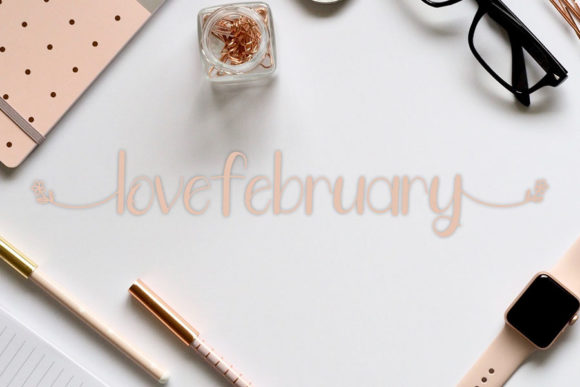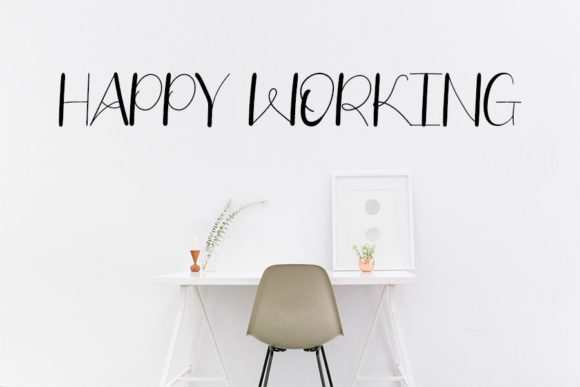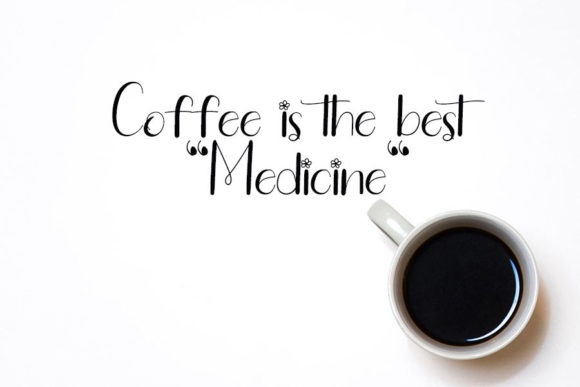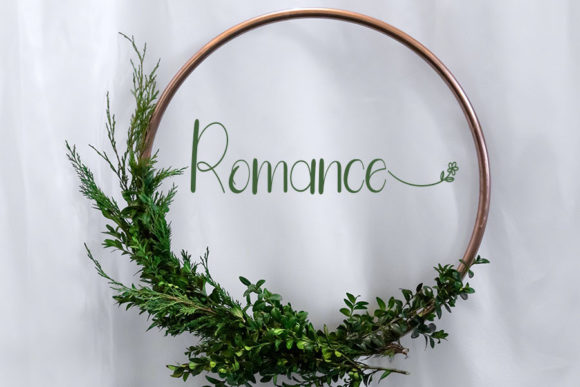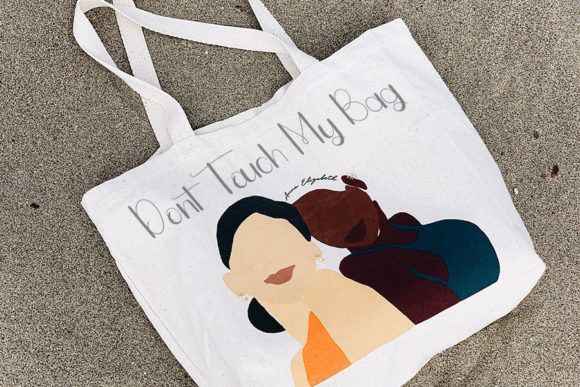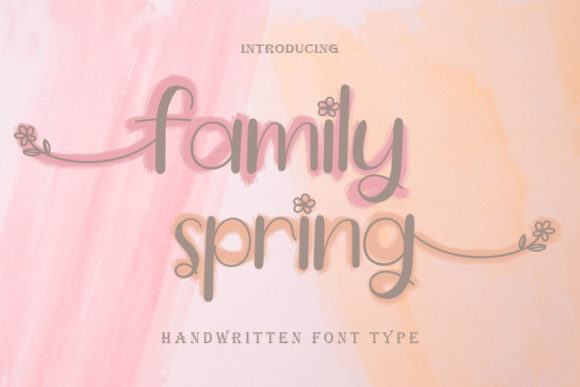
Introducing Family Spring Font: Elevate Your Designs with Elegance and Sophistication
Are you on the hunt for a font that exudes elegance, sophistication, and a touch of modern flair? Look no further than Family Spring Font, a stunning handwritten typeface that is sure to capture your heart. Designed with meticulous attention to detail, Family Spring seamlessly blends classic calligraphic influences with a contemporary twist, making it the perfect addition to your design arsenal.
Handwritten fonts have a unique charm that can instantly elevate your designs from ordinary to extraordinary. They add a personal touch, conveying warmth and character in a way that digital fonts often can’t. Family Spring Font is a masterclass in handwritten typography, boasting beautiful, flowing lines that dance across the page with effortless elegance.
What Makes Family Spring Font Stand Out
- Classy Calligraphic Influences: Family Spring Font draws inspiration from traditional calligraphy, giving it a refined and luxurious feel. Each letter is carefully crafted to showcase the beauty of handwritten script, making it perfect for designs that require a touch of sophistication.
- Contemporary and Fresh: While Family Spring Font pays homage to classic calligraphy, it also has a distinctly modern edge. This blend of old and new ensures that your designs feel current and relevant, rather than dated or overly traditional.
- Versatility: One of the standout features of Family Spring Font is its versatility. Whether you’re working on a wedding invitation, a branding project, or a craft tutorial, this font adapts effortlessly to any design brief. Its beauty shines through in both digital and print formats, making it a valuable addition to any designer’s toolkit.
How to Use Family Spring Font in Your Projects
Family Spring Font is incredibly easy to use, even for those who are new to design. Here are a few ideas to get you started:
- Wedding and Event Stationery: Create breathtaking wedding invitations, save-the-date cards, and event programs that set the tone for a stylish and memorable occasion.
- Branding and Packaging: Elevate your brand with a sophisticated logo or packaging design that showcases Family Spring Font’s elegant charm.
- Crafting and DIY Projects: Add a touch of handmade magic to your crafting and DIY projects, such as handmade cards, scrapbooking, and journaling.
- Digital Designs: Use Family Spring Font to add a personal touch to your digital creations, from social media graphics to website headers.
Why Designers and Crafters Love Family Spring Font
Designers and crafters alike are drawn to Family Spring Font for its unique blend of style, versatility, and ease of use. Here are just a few reasons why:
- Time-Saving: With Family Spring Font, you can create stunning designs in a fraction of the time it would take with more complex fonts or design elements.
- Professional Results: Achieve professional-looking results without needing extensive design experience. Family Spring Font does the heavy lifting, allowing you to focus on the creative aspects of your project.
- Emotional Connection: The personal touch that Family Spring Font brings to your designs helps create an emotional connection with your audience, whether they’re reading a heartfelt letter or browsing your online store.
Family Spring Font is more than just a font – it’s a design solution that can elevate your projects to new heights. Its beautiful, handwritten aesthetic, combined with its versatility and ease of use, make it an indispensable tool for designers and crafters. Whether you’re looking to add a touch of elegance to your branding, create memorable event stationery, or simply bring a personal touch to your crafting projects, Family Spring Font is the perfect choice. So why wait? Fall in love with Family Spring Font and discover a world of design possibilities at your fingertips.